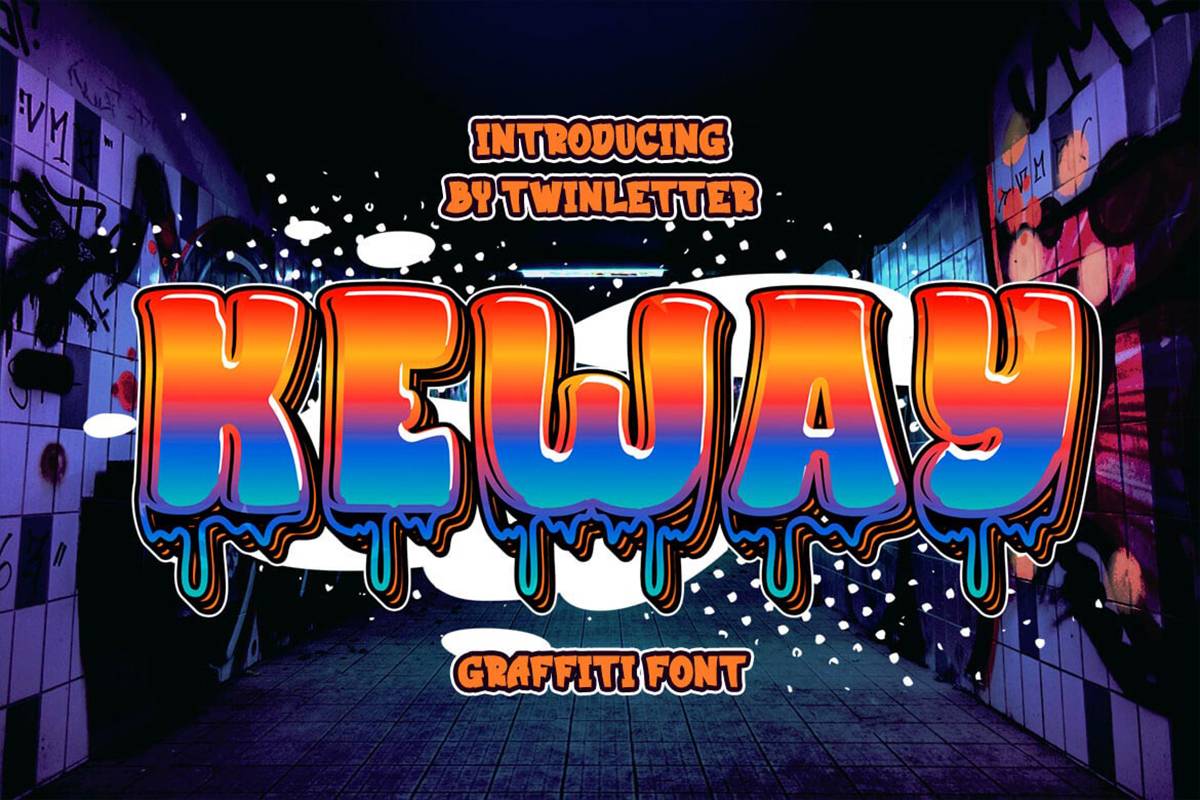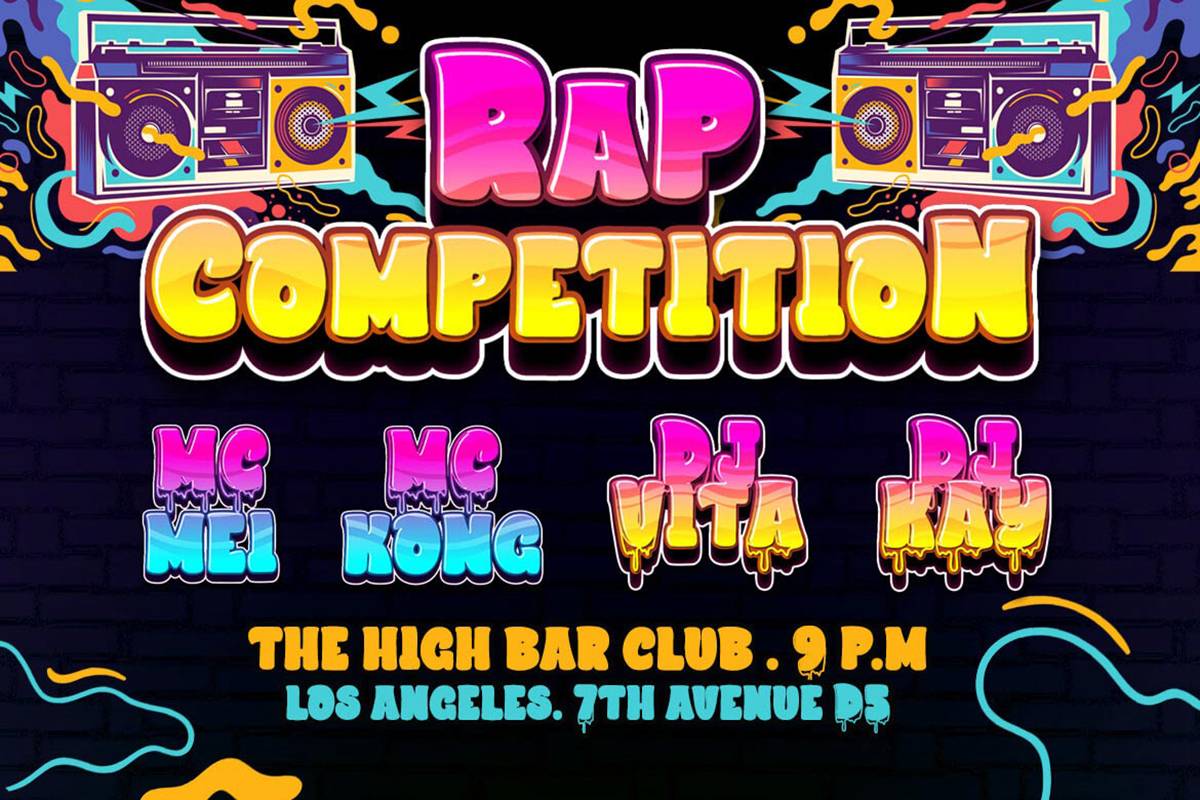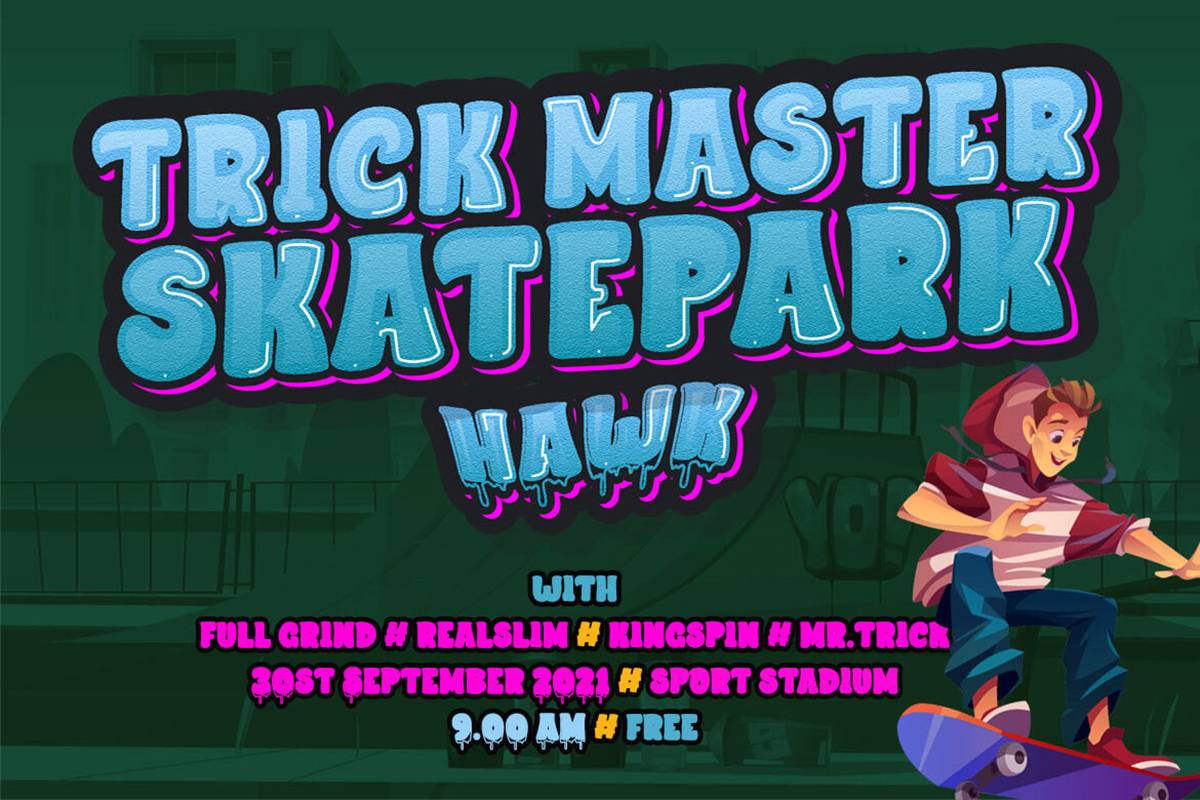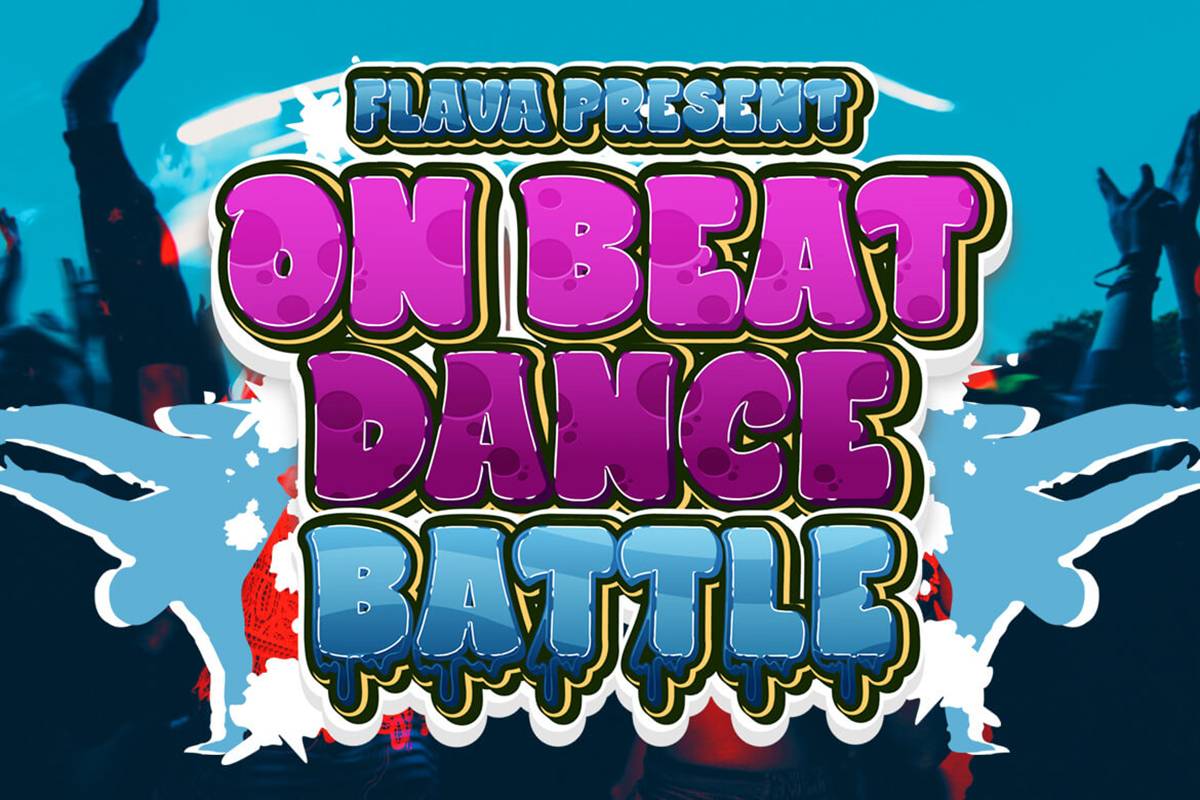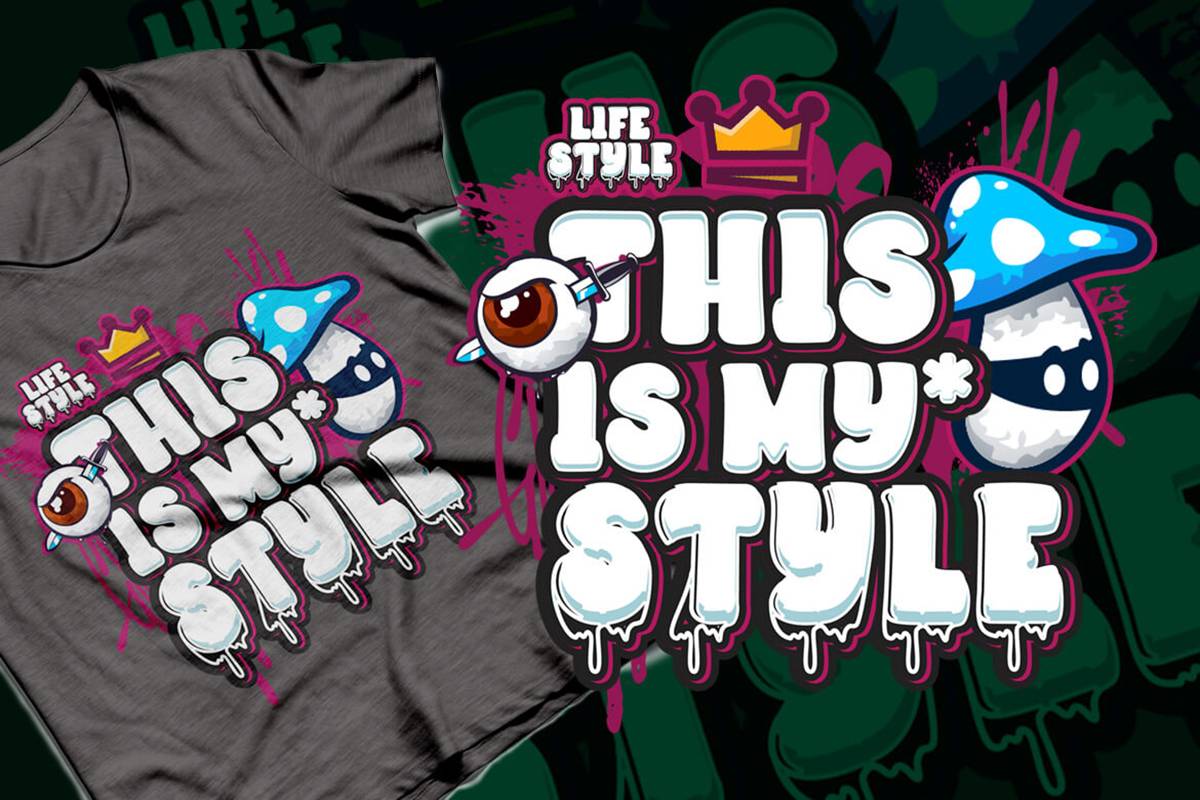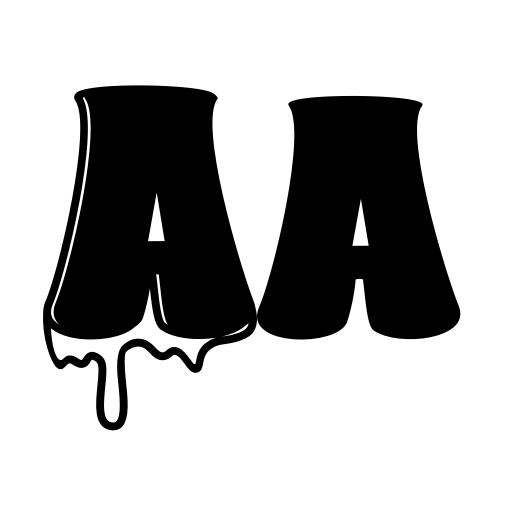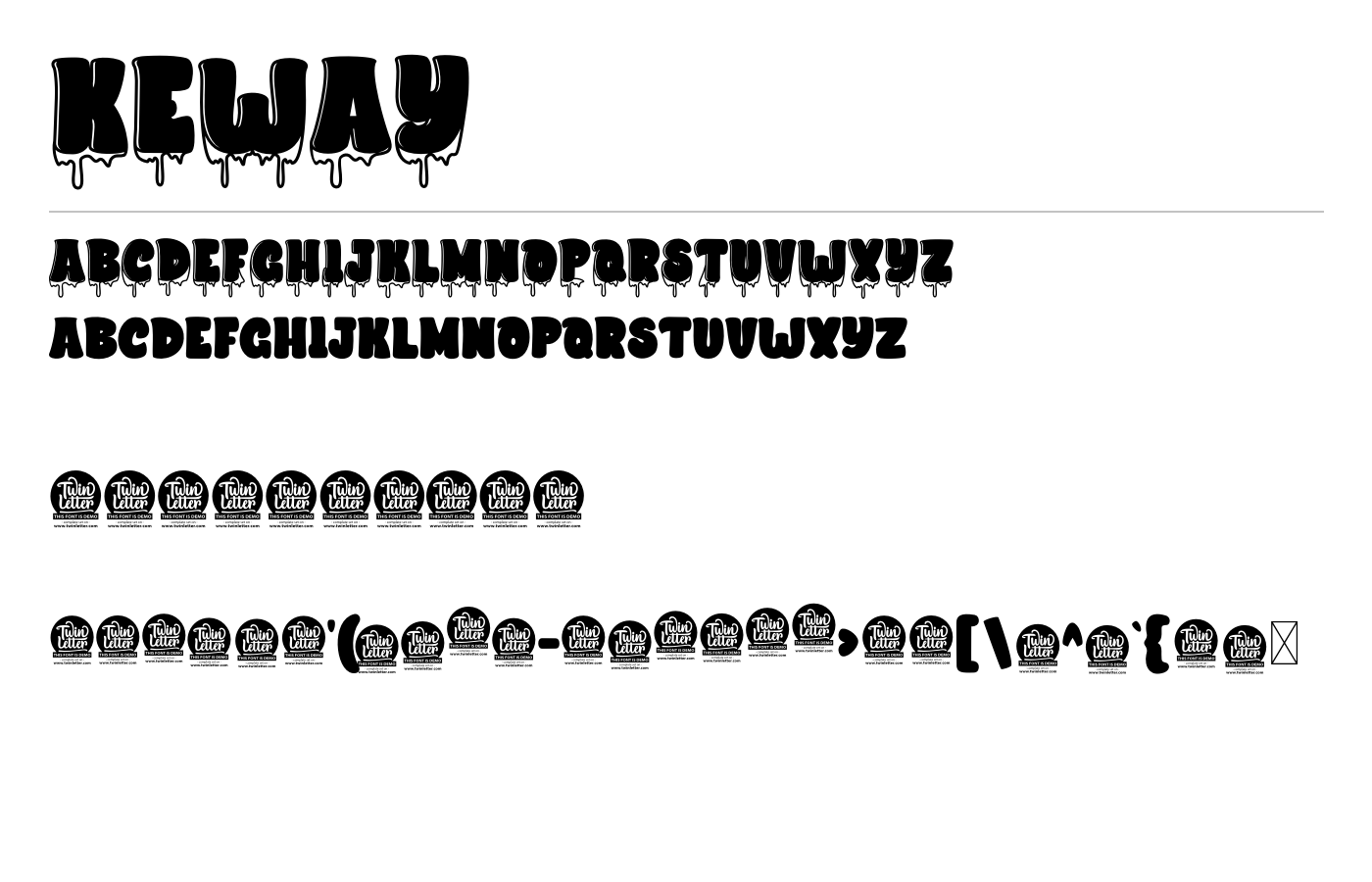
Keway is a bold, playful display font with thick, rounded letterforms that feature dripping, melting effects, giving it a fun and quirky personality. Its heavy weight and expressive style make it perfect for eye-catching headlines, posters, and branding that aims to evoke creativity and a casual, unconventional vibe. This font works well in designs related to entertainment, youth culture, or any context where a unique and memorable visual impact is desired.
Keway Font
About Keway Font